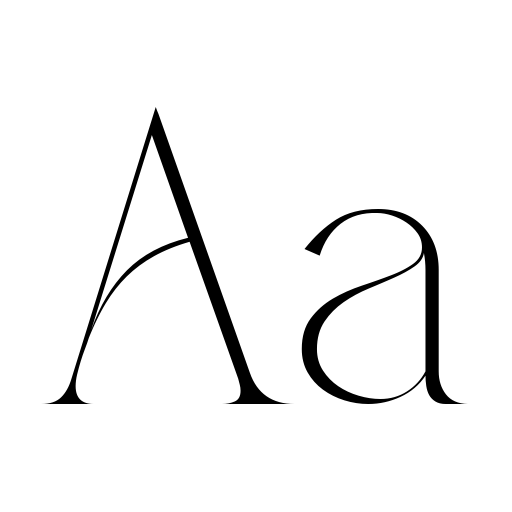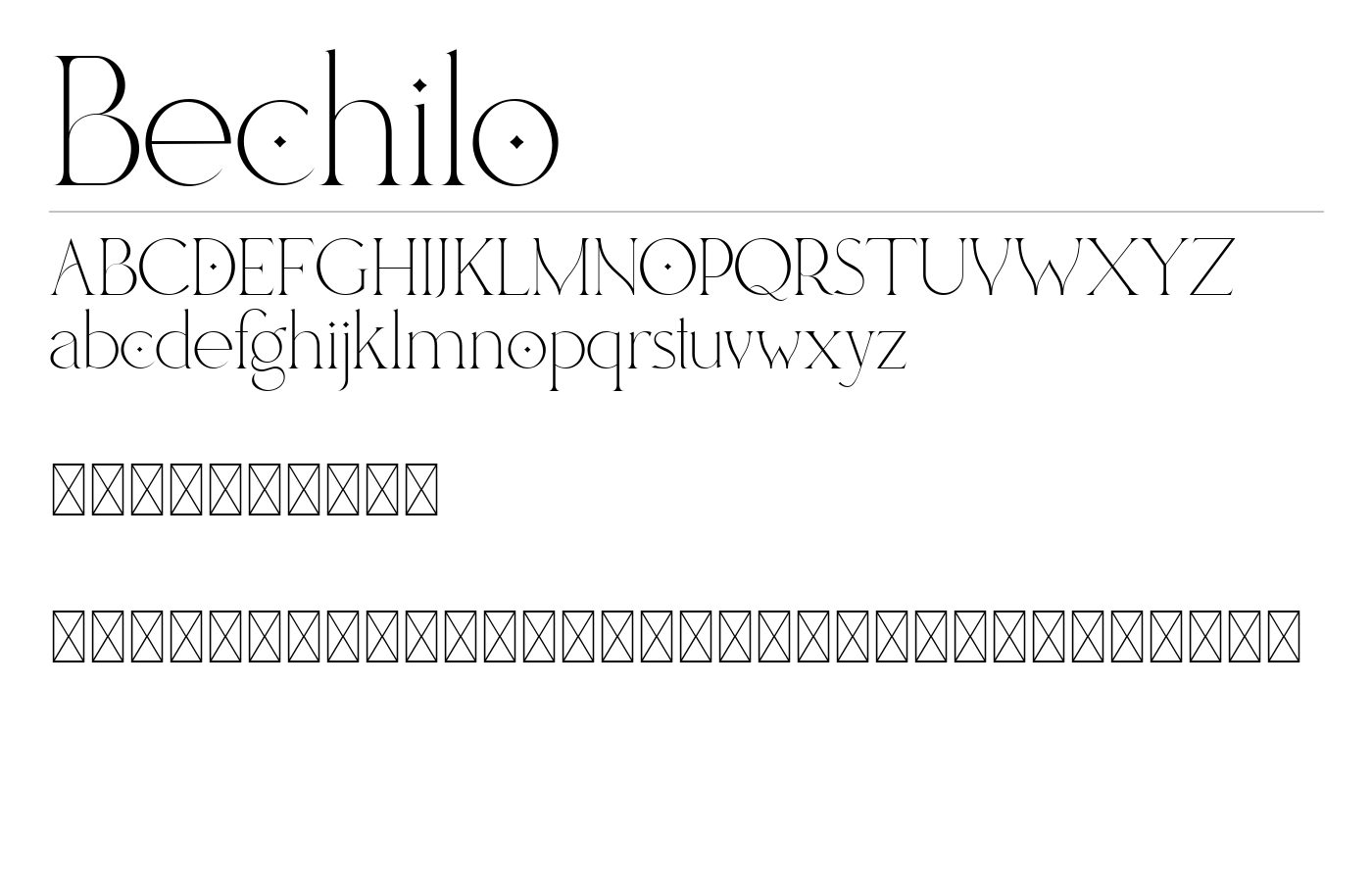
Bechilo is a delicate serif font that features thin, elegant strokes with high contrast between thick and thin lines, giving it a refined and luxurious feel. Its stylized letterforms, including distinctive geometric details like diamond-shaped dots, make it ideal for sophisticated branding, fashion, and editorial design where a touch of modern elegance is desired. This font shines in headlines and logos, bringing a unique and artistic flair to any project.
Bechilo Font
About Bechilo Font
| Font family | Bechilo Font |
| Designer | Yahya Qara |